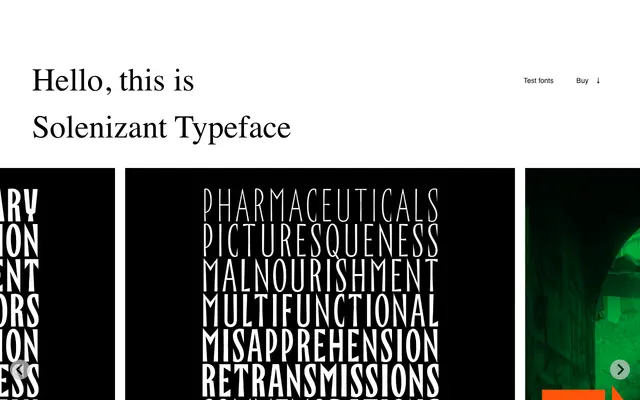
Solenizant
Laïc · Maciej Połczyński
An uppercase-only display typeface in 10 styles with a bold, expressive character, designed by Maciej Połczyński at Laïc.
Available in 10 styles with uppercase letters only, it covers the full Polish Latin character set including diacritics such as Ą, Ć, Ę, Ł, Ń, Ó, Ś, Ż and Ź. Its name derives from the Polish word for a person celebrating a birthday or name day, which gives some indication of its festive, attention-grabbing tone. Best suited to headlines, posters and short display copy where personality takes precedence over extended reading.
An uppercase-only headline typeface described as funky with a strong attitude, placing it firmly in the display decorative category rather than any conventional text face classification.